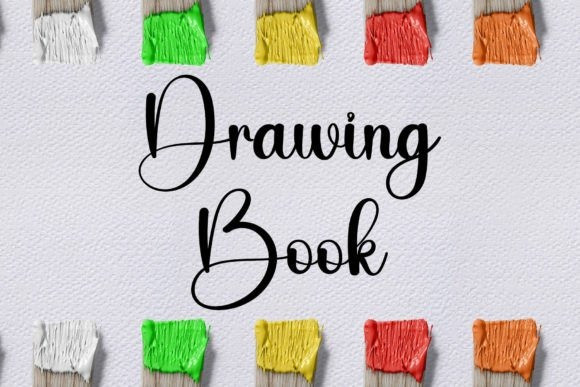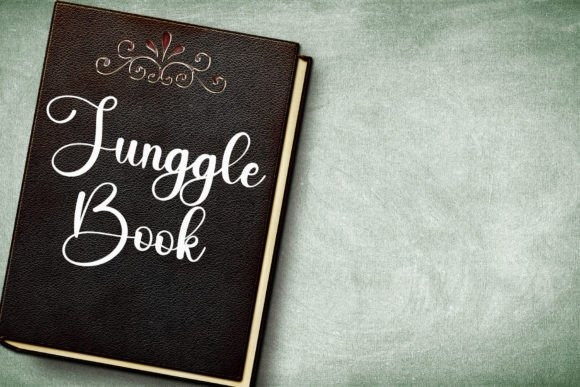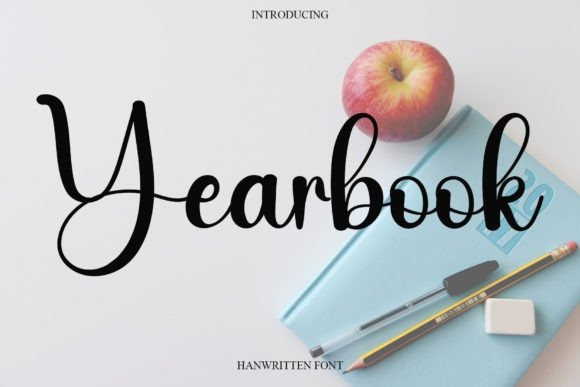
Yearbook Script Font
Yearbook Script Font, is a sweet and beautiful handwritten font. Featuring characters that dance along the baseline. This font will add a luxury spark to any design project you wish to create!